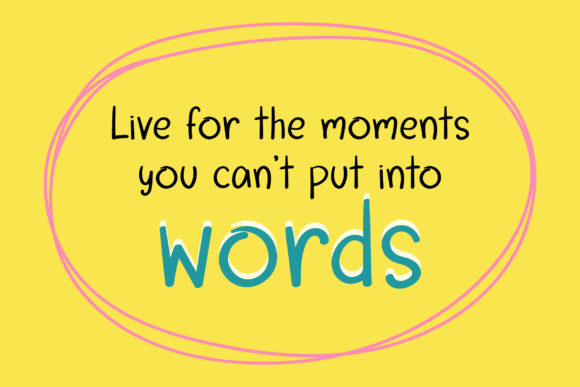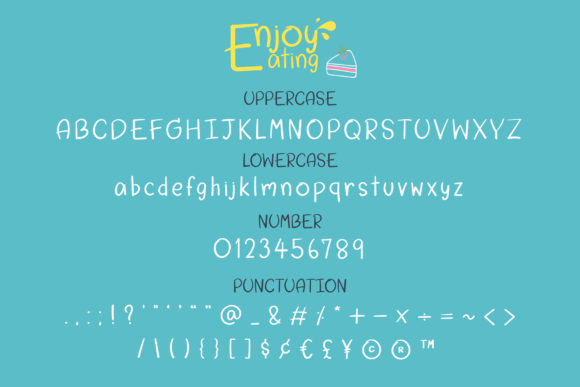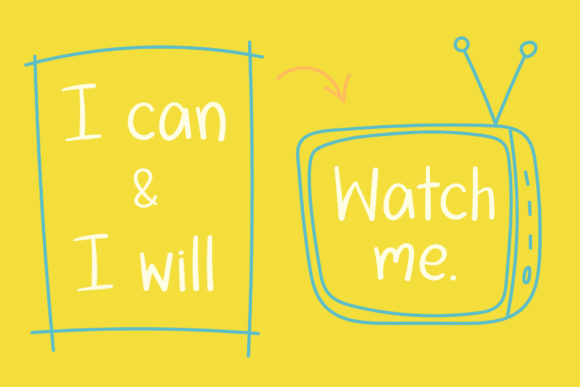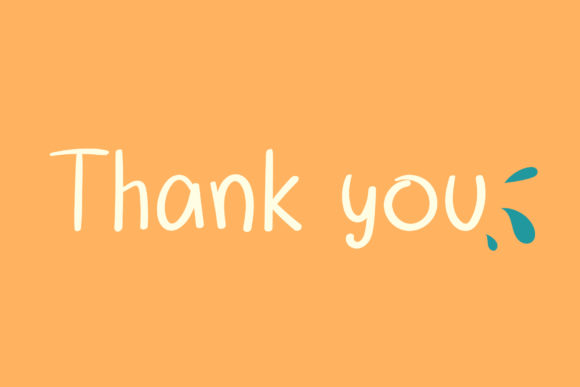
Introducing Enjoy Eating Font: The Perfect Addition to Your Design Projects
Are you a designer or crafter looking for a unique and playful font to elevate your design projects? Look no further than Enjoy Eating Font! This round lettered, playful handwritten font is the perfect addition to a wide range of design projects, from branding and headings to wedding designs, invitations, signatures, logos, labels, and more.
The Versatility of Enjoy Eating Font
One of the standout features of Enjoy Eating Font is its versatility. This font is designed to be adaptable and can be used in a variety of design projects. Whether you’re creating a logo for a new business, designing an invitation for a special occasion, or crafting a label for a product, Enjoy Eating Font is the perfect choice. Its playful and handwritten style adds a touch of personality to any design, making it stand out from the crowd.
Elevate Your Design Projects with Enjoy Eating Font
Enjoy Eating Font is more than just a font – it’s a design solution. Its unique and playful style can elevate even the most basic design projects to the highest level. Imagine using Enjoy Eating Font to create a stunning logo for a new business, or to design a beautiful wedding invitation that sets the tone for a special day. The possibilities are endless, and the only limit is your imagination!
Enjoy Eating Font is a must-have for designers and crafters who want to add a touch of personality to their design projects. Whether you’re a professional designer or a hobbyist crafter, this font is the perfect addition to your toolkit. With Enjoy Eating Font, you can create unique and eye-catching designs that showcase your creativity and style.
Use Enjoy Eating Font for:
- Branding: Create a unique and memorable logo for your business with Enjoy Eating Font.
- Headings: Add a touch of personality to your headings and titles with this playful font.
- Wedding Designs: Create beautiful wedding invitations, signs, and decorations with Enjoy Eating Font.
- Invitations: Design stunning invitations for any occasion, from birthday parties to baby showers.
- Signatures: Add a personal touch to your email signatures or business cards with Enjoy Eating Font.
- Logos: Create a unique and memorable logo for your business or product.
- Labels: Design eye-catching labels for your products or packaging.
Why Choose Enjoy Eating Font?
So why choose Enjoy Eating Font for your design projects? Here are just a few reasons:
- Unique and Playful Style: Enjoy Eating Font has a unique and playful style that adds a touch of personality to any design.
- Versatility: This font is adaptable and can be used in a wide range of design projects.
- High-Quality: This font is high-quality and designed to produce stunning results.
Get Creative with Enjoy Eating Font
With Enjoy Eating Font, the possibilities are endless. Don’t be limited by your font choices – get creative and experiment with different designs and styles. Whether you’re a designer or crafter, Enjoy Eating Font is the perfect addition to your toolkit.
In conclusion, Enjoy Eating Font is a must-have for designers and crafters who want to add a touch of personality to their design projects. With its unique and playful style, versatility, and ease of use, this font is the perfect choice for a wide range of design projects. So why wait? Get creative with Enjoy Eating Font today and take your design projects to the next level!